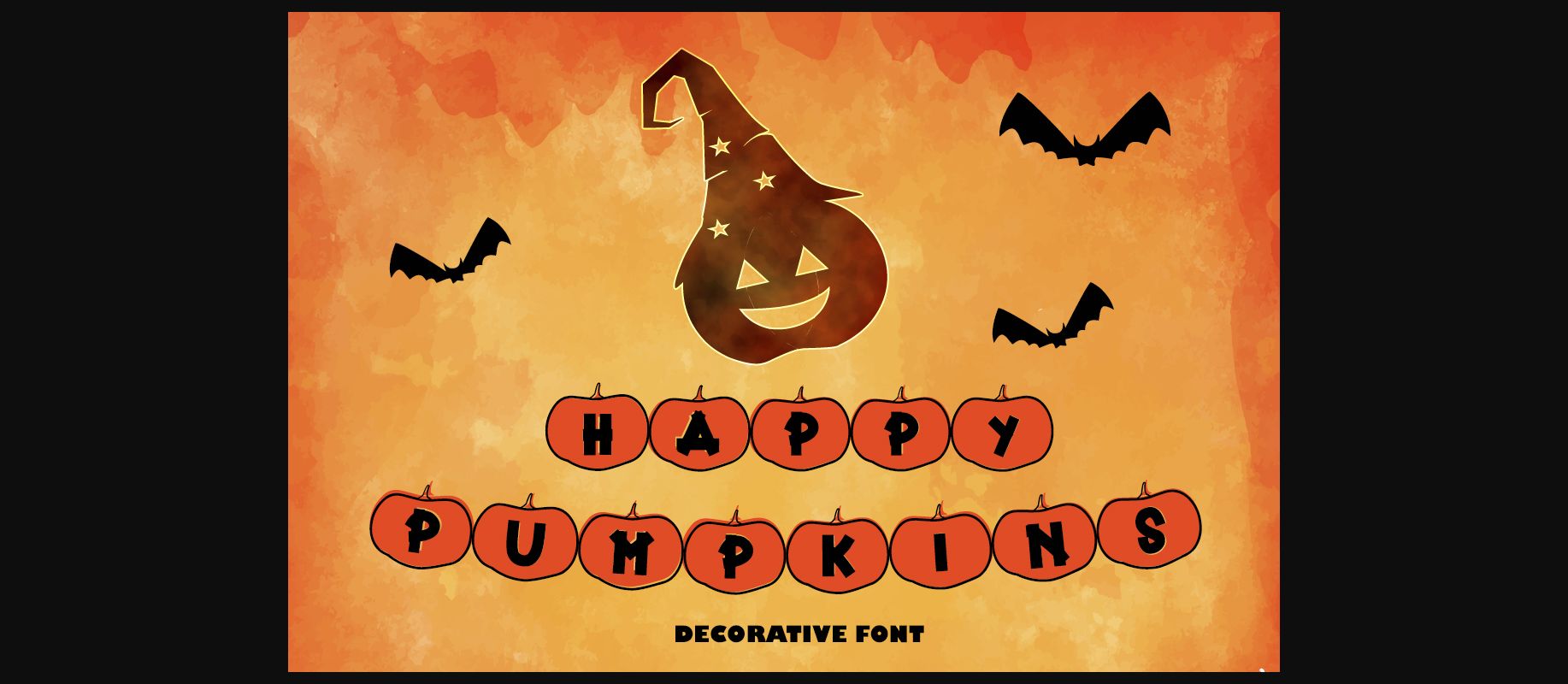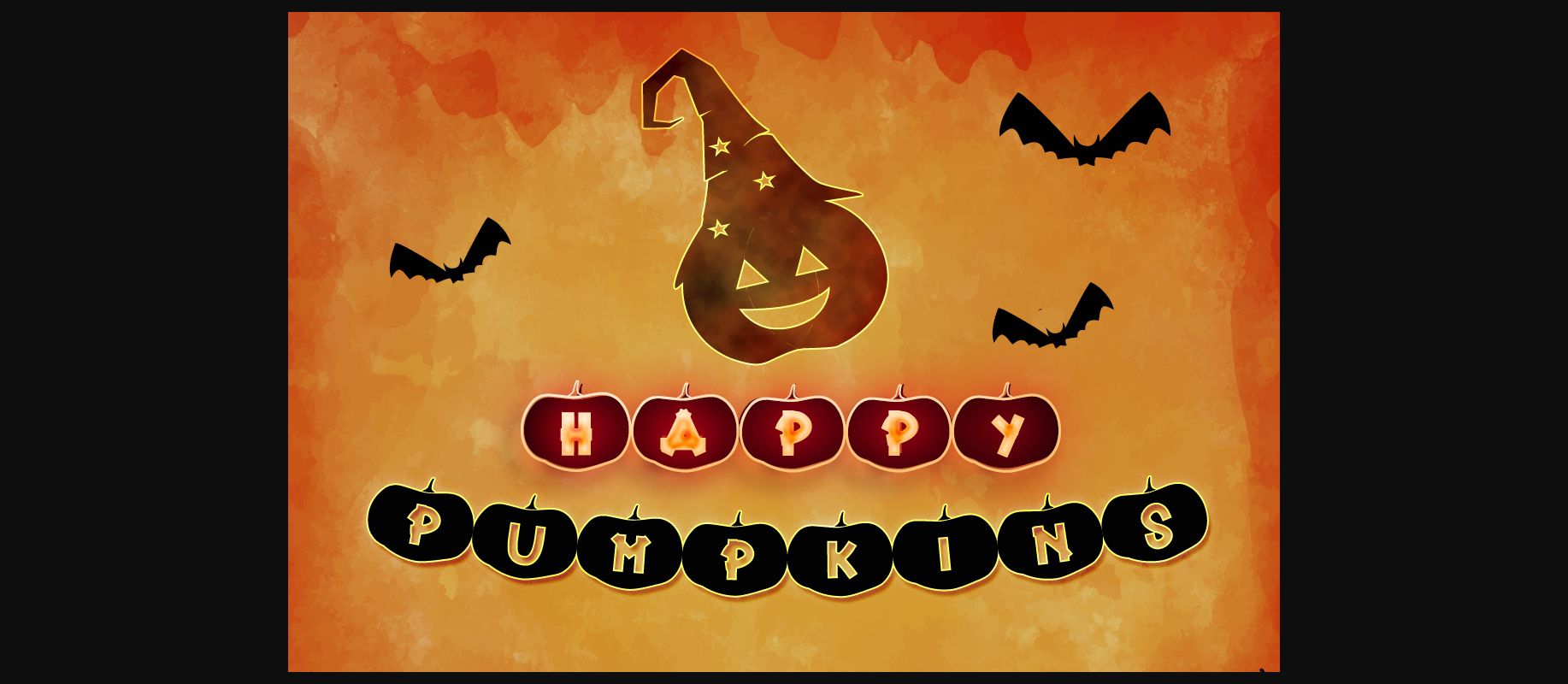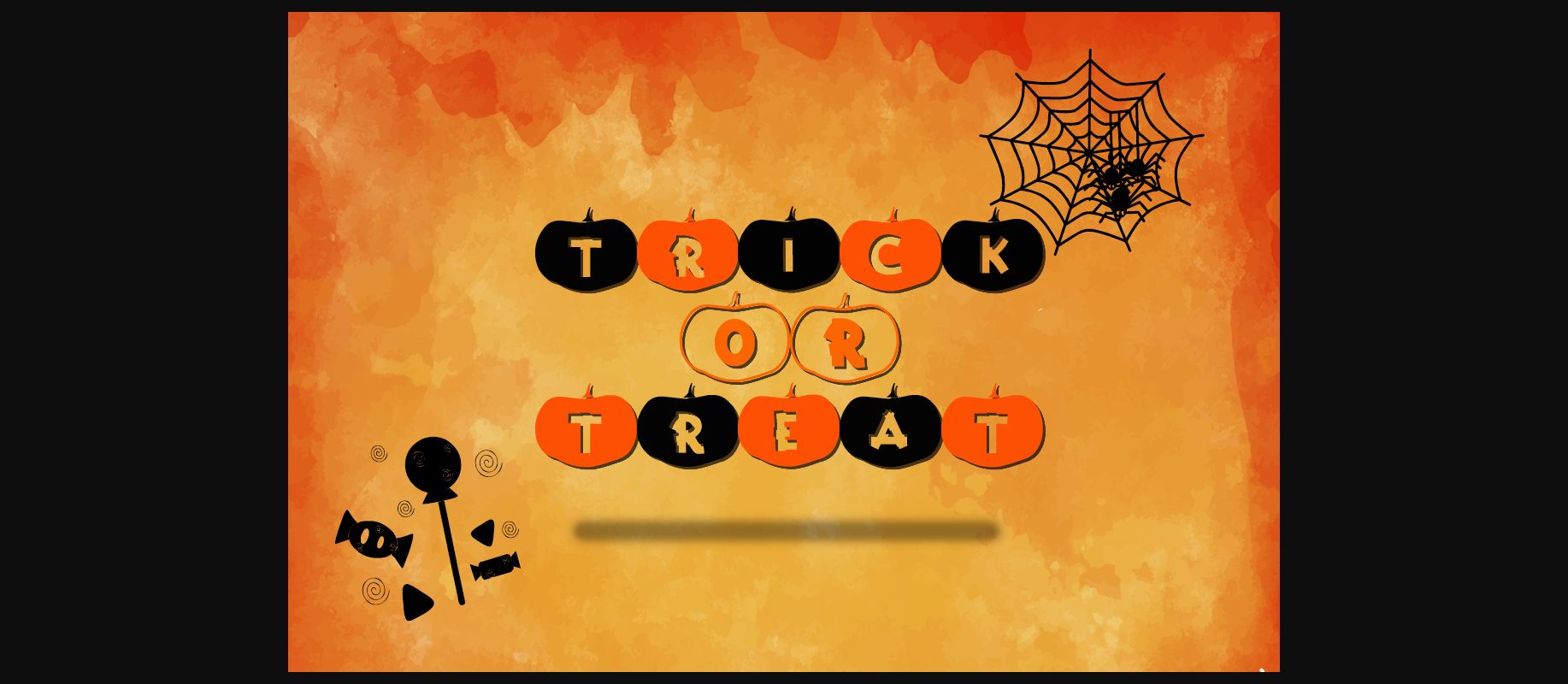
About Happy Pumpkins Font
Happy Pumpkin is an unique decorative font with fancy pumpkin shapes. It works great on posters, display banners, invitation cards, merchandises, and much more!